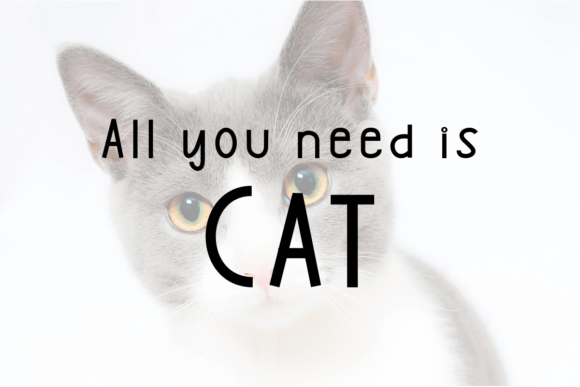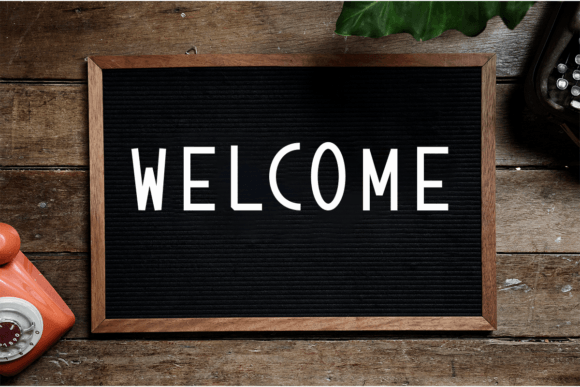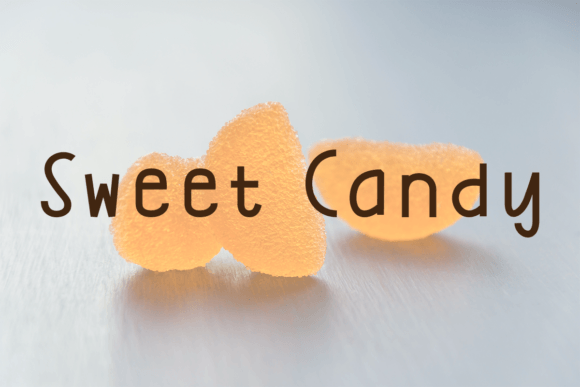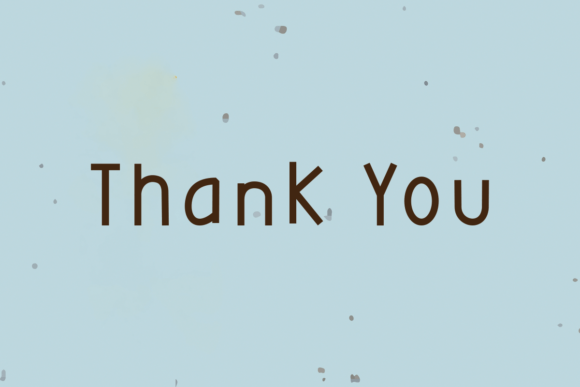
The Designer’s Delight: Unpacking the Elegance of Bonnie Font
I’ll never forget the time I was working on a branding project for a trendy boutique hotel. I had nailed down the color palette, chosen the perfect imagery, but was stuck on finding the right font. The client wanted something modern, clean, and elegant, but not too fancy. That’s when I stumbled upon Bonnie Font, a minimalist and neat sans serif font that instantly caught my attention. In this article, I’ll share my experience with Bonnie Font, its features, and how to make the most of it in your designs.
As a designer, I was immediately drawn to Bonnie Font’s simplicity and versatility. Here are a few things I love about it:
• ✨ **Clean and minimalist design**: Bonnie Font is perfect for projects that require a modern and sleek look.
• ✅ **Highly legible**: The font is easy to read, even at small sizes, making it ideal for body text.
• 💡 **Versatile**: Bonnie Font can be used for a wide range of projects, from branding and advertising to packaging and digital media.
While Bonnie Font is an excellent choice, it’s not without its limitations. A few things to keep in mind:
• 🤔 **Limited character set**: Bonnie Font may not have all the special characters or glyphs you need for certain projects.
• ⚠️ **Not ideal for body text in small sizes**: While highly legible, Bonnie Font may not be the best choice for body text in very small sizes (e.g., 8-10pt).
The Story Behind Bonnie Font
Bonnie Font was designed with the goal of creating a clean, modern, and highly legible sans serif font. The designer aimed to craft a font that would be versatile and easy to read, making it perfect for a wide range of projects. While the designer’s background is unclear, it’s evident that they drew inspiration from modern typography trends and a passion for simplicity.
What is Bonnie Font? Bonnie Font is a minimalist and neat sans serif font designed for modern projects.